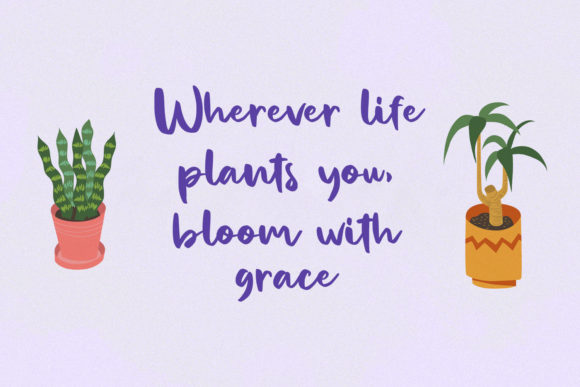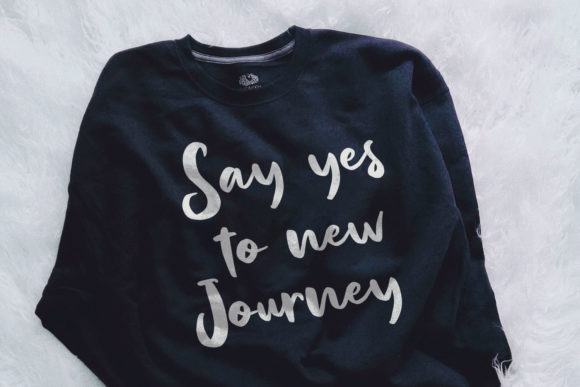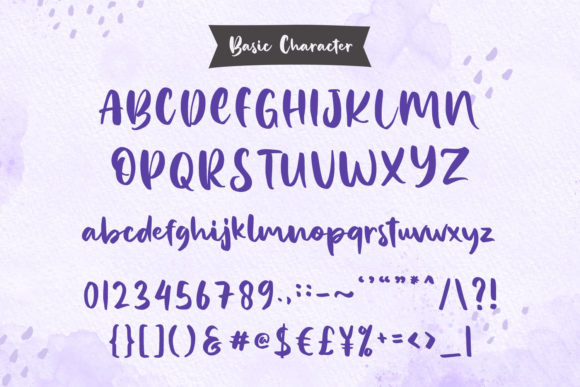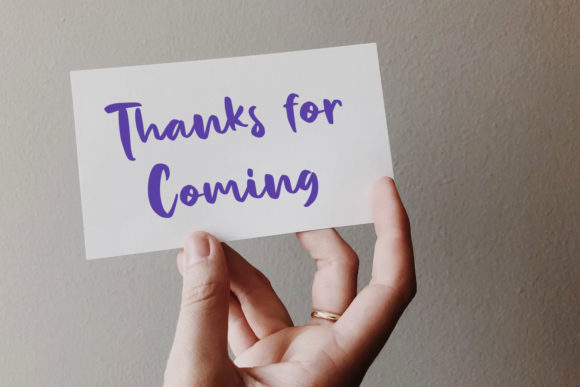
Introducing Beauty Valerina Font: Elevate Your Designs with Elegance
Are you a designer or crafter looking for a font that embodies elegance and sophistication? Look no further than Beauty Valerina Font. This delicate, elegant, and flowing handwritten font is designed to add a touch of refinement to your creative projects. With its beautiful and well-balanced characters, Beauty Valerina Font is the perfect addition to your design arsenal.
The Characteristics of Beauty Valerina Font
Beauty Valerina Font boasts a range of characteristics that make it an ideal choice for designers and crafters. Its delicate and flowing script is reminiscent of traditional handwriting, yet it has a modern twist that sets it apart from more traditional fonts. The characters are beautifully crafted, with a focus on balance and harmony. This attention to detail ensures that the font is easy to read and looks stunning in a variety of contexts.
Why Beauty Valerina Font is a Great Choice for Designers and Crafters
So, why should you choose Beauty Valerina Font for your design projects? Here are just a few reasons:
- Versatility: Beauty Valerina Font is incredibly versatile, and can be used in a wide range of designs, from wedding invitations and branding materials to social media graphics and more.
- Elegance: The font’s elegant and refined aesthetic makes it perfect for designs that require a touch of sophistication.
- Readability: The characters are carefully crafted to ensure that the font is easy to read, even at small sizes.
- Uniqueness: While Beauty Valerina Font has a classic feel, it is unique and distinctive, making it a great choice for designers who want to stand out from the crowd.
How to Use Beauty Valerina Font in Your Designs
Beauty Valerina Font is easy to use in a variety of design contexts. Here are a few ideas to get you started:
- Wedding Invitations: Add a touch of elegance to your wedding invitations with Beauty Valerina Font.
- Branding Materials: Use the font to create a sophisticated brand identity that sets your business apart.
- Social Media Graphics: Add a touch of refinement to your social media graphics with Beauty Valerina Font.
- Stationery: Use the font to create beautiful stationery, including letterheads, business cards, and more.
Tips for Getting the Most Out of Beauty Valerina Font
Here are a few tips for getting the most out of Beauty Valerina Font:
- Experiment with different sizes: Beauty Valerina Font looks great at a range of sizes, from small and delicate to large and bold.
- Play with color: The font looks stunning in a range of colors, from soft pastels to rich jewel tones.
- Combine with other fonts: Beauty Valerina Font pairs well with a range of other fonts, so don’t be afraid to experiment with different combinations.
In conclusion, Beauty Valerina Font is a beautiful and elegant handwritten font that is perfect for designers and crafters looking to add a touch of sophistication to their creative projects. With its delicate and flowing script, beautiful characters, and versatility, it’s a great choice for a wide range of designs. Whether you’re creating wedding invitations, branding materials, or social media graphics, Beauty Valerina Font is sure to make your designs come alive.